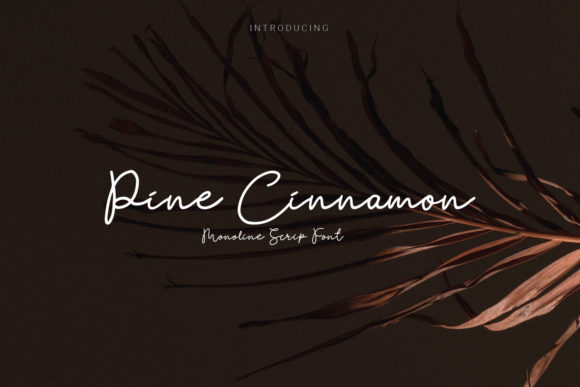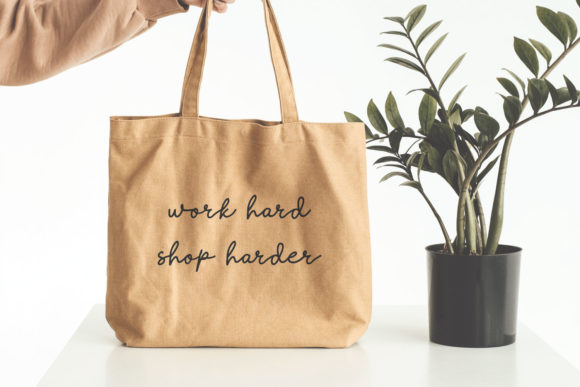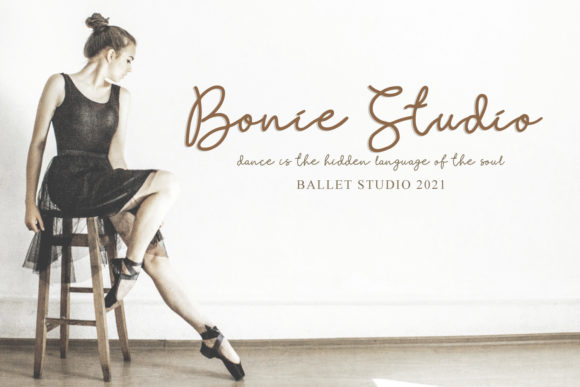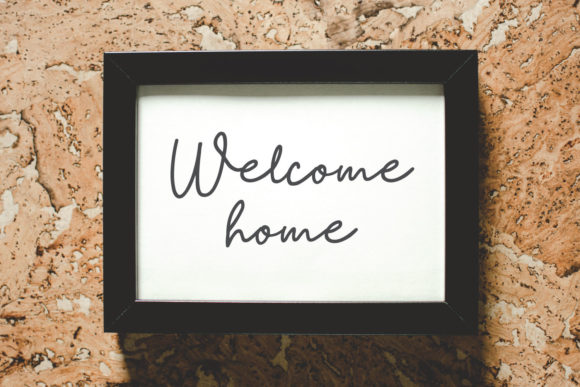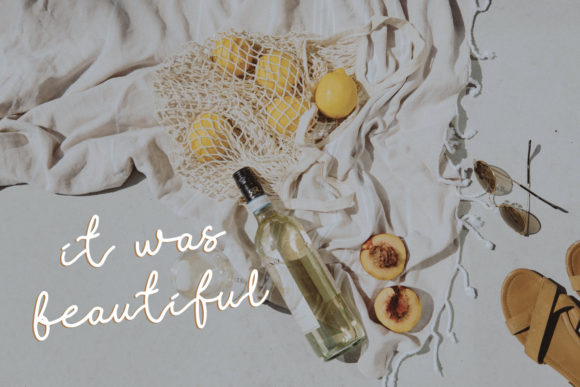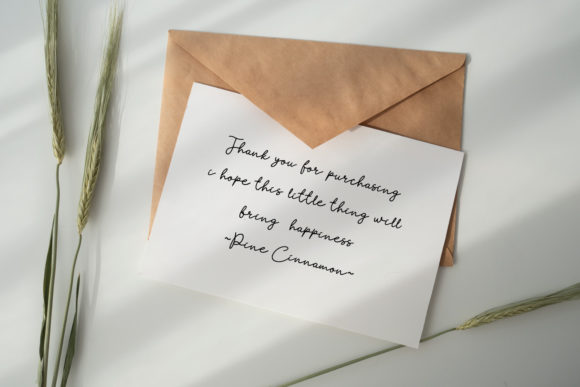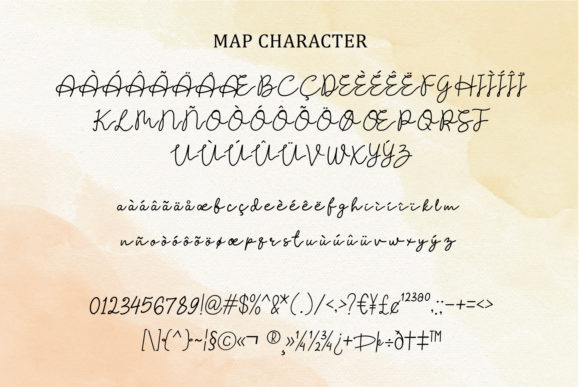
Pine Cinnamon Font
About Pine Cinnamon Font
Pine Cinnamon is an original & organic hand-drawn script font. Pine Cinnamon is perfect for handwritten quotes, signature styled logos, stylish branding projects, handcrafted stationery & product designs.